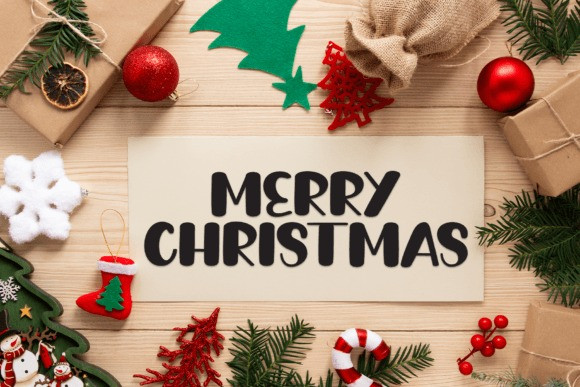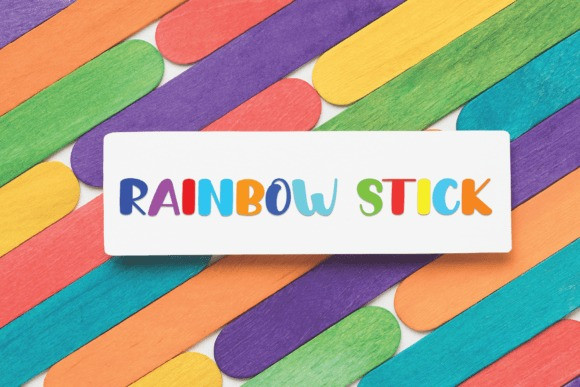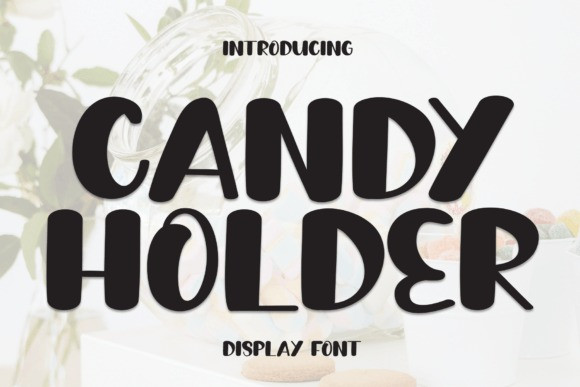
Candy Holder Font
Candy Holder Font is a sweet and friendly handwritten display font. Cute and fun, this font is ideal for writing wedding invitations, cards, or any other design that might need a fun touch!